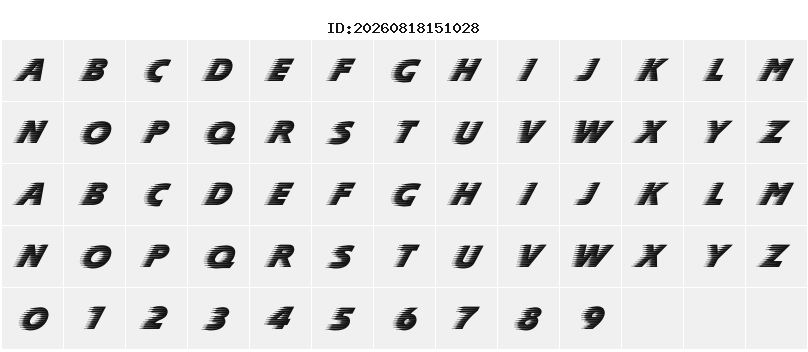
SlipperDB Preview
• Font Name: SlipperDB
• Font ID: Altsys Fontographer 4.0.3 SlipperDB Normal
• Full Font Name: SlipperDB Normal
• Version: Altsys Fontographer 4.0.3 17.9.1994
• PostScript Name: SlipperDBNormal
• Character Count: 192
About SlipperDB.ttf
SlipperDB.ttf is a modern, elegant sans-serif font designed for ultimate readability and visual harmony. Perfect for branding, headlines, web design, and print materials.